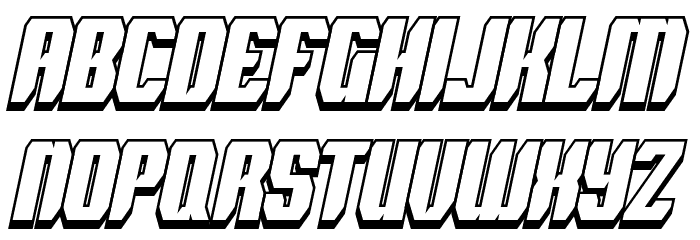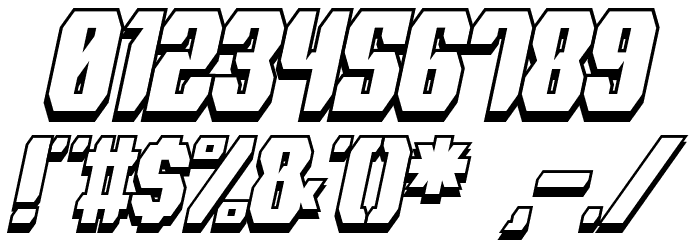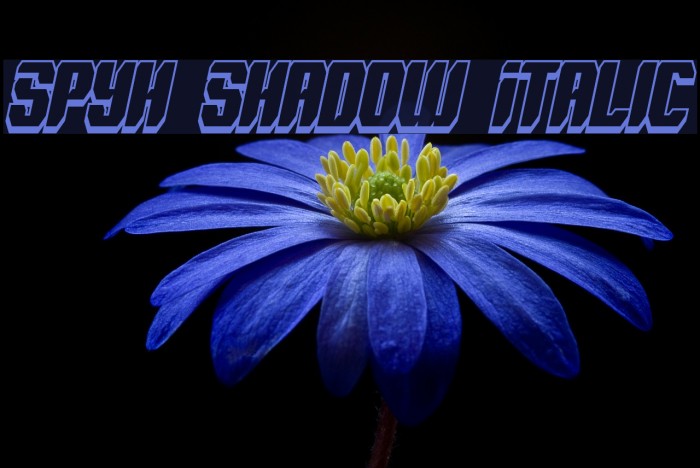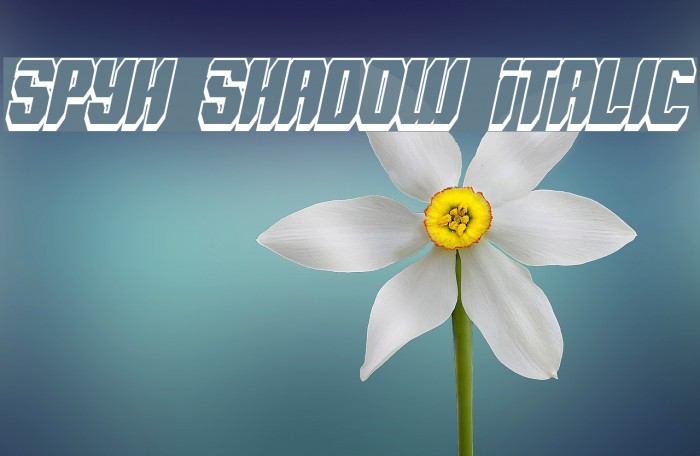
Spyh Shadow Italic Font
This font features a bold, italicized style with a distinct shadow effect that gives it a three-dimensional appearance. The characters are blocky and angular, with sharp edges and a futuristic feel. The uppercase and lowercase letters maintain a consistent design, emphasizing a strong and dynamic presence. The numbers and special characters follow the same aesthetic, ensuring uniformity across all glyphs. The shadow effect adds depth, making the text stand out prominently against any background. This font is ideal for projects that require a bold statement or a modern, edgy look.
Bold, italicized font with a shadow effect and a futuristic, angular design.
- Proposed Projects: Perfect for video game titles, movie posters, sports branding, and any project needing a dynamic and impactful typeface.